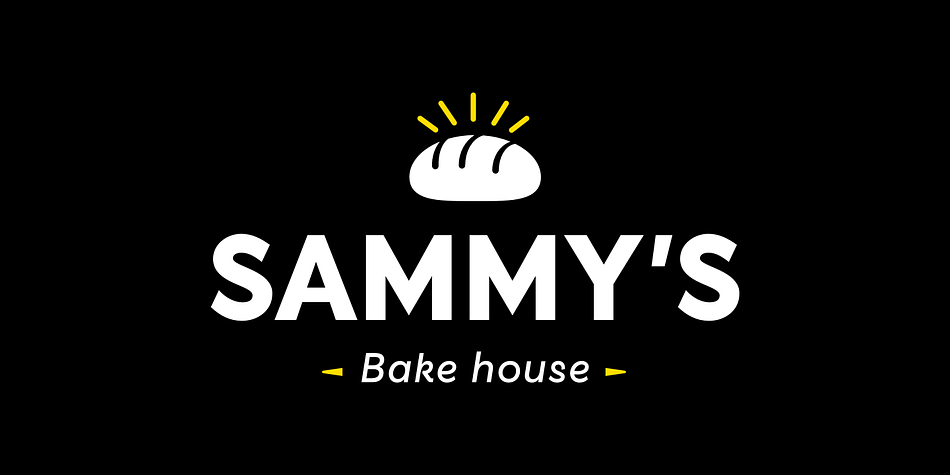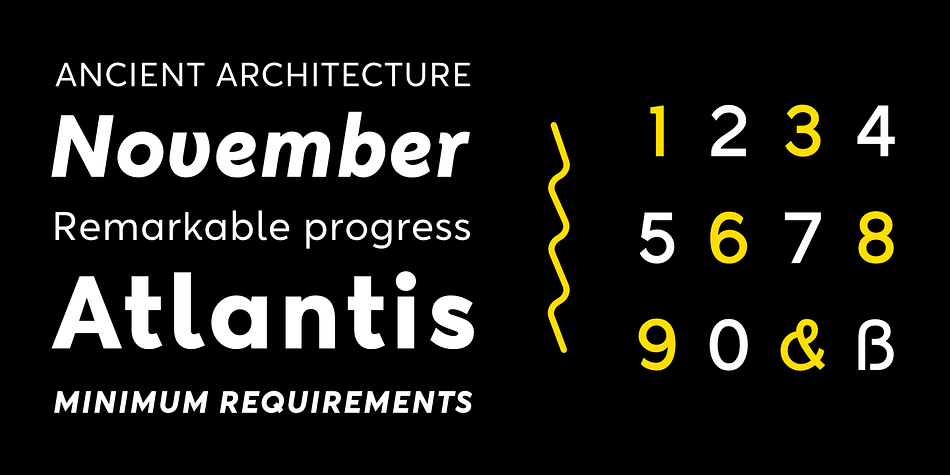
Kentledge
Kentledge is a sans serif font family. This typeface has sixteen styles and was published by Namogo.
Kentledge is a geometric grotesque sans type family based on geometric forms that have been optically corrected for better legibility. The family includes extended language support (over 200 languages), alternates, ligatures and more. It is best suited for graphic design and any display / text use.